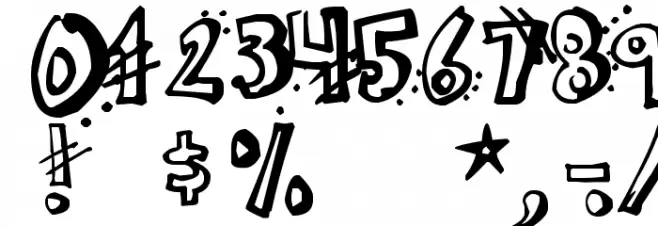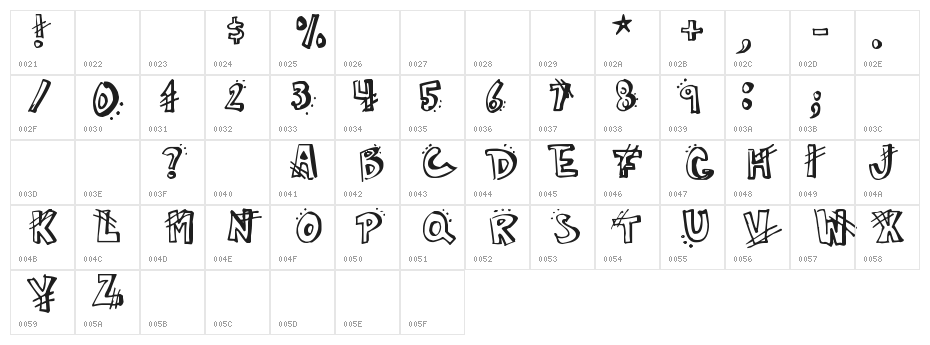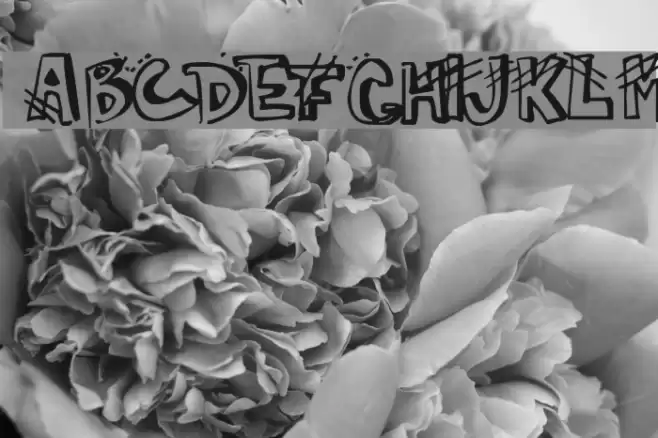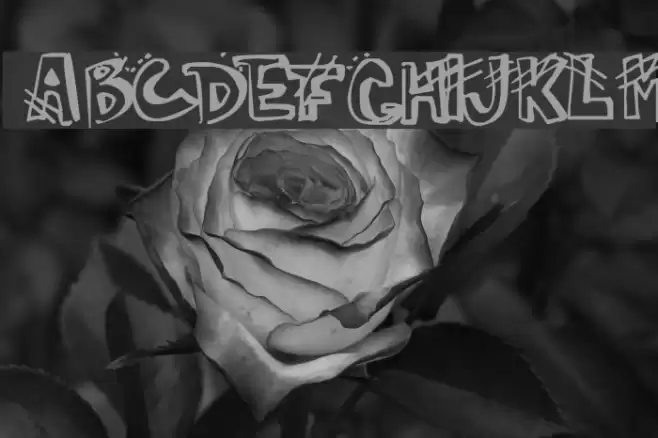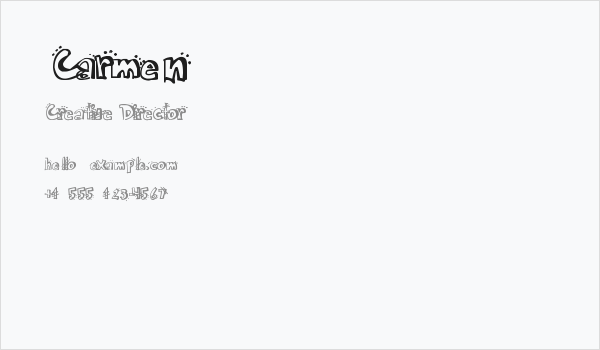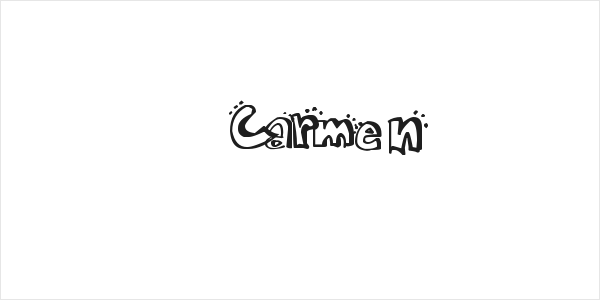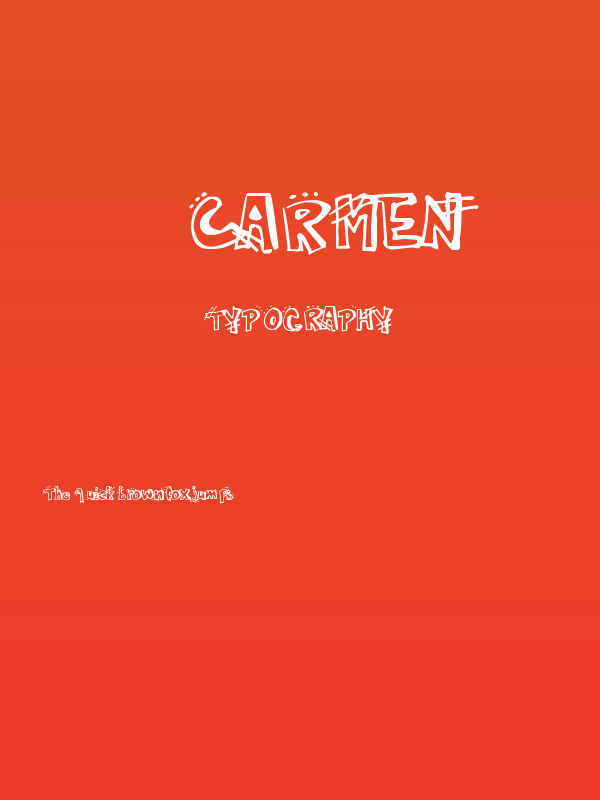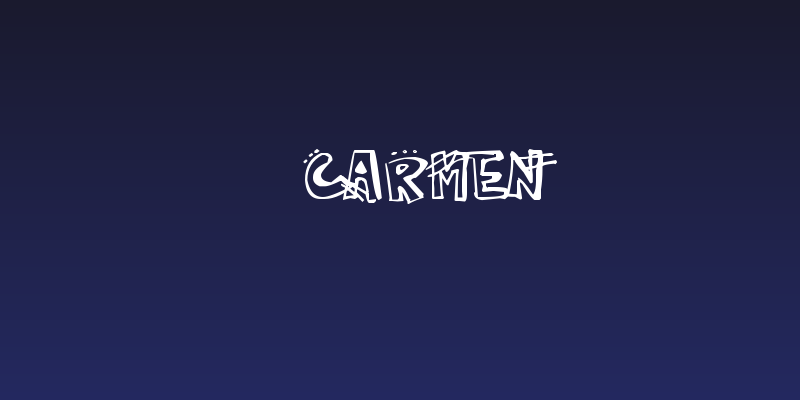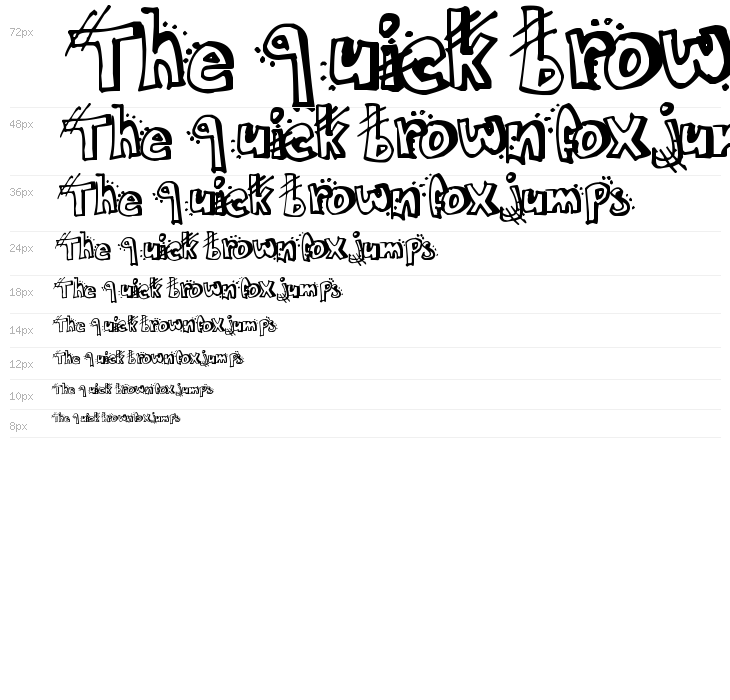
Carmen Font
Carmen Description
This font exhibits a playful and chaotic style, characterized by its bold, hand-drawn appearance. The letters are irregular and feature unique embellishments such as dots and lines that give it a graffiti-like aesthetic. The uppercase and lowercase letters maintain a consistent whimsical theme, with exaggerated curves and angles. Numbers and special characters follow the same artistic approach, making the font suitable for creative and informal designs. Its distinctiveness lies in the energetic and dynamic presentation, which captures attention and adds a sense of fun to any project.